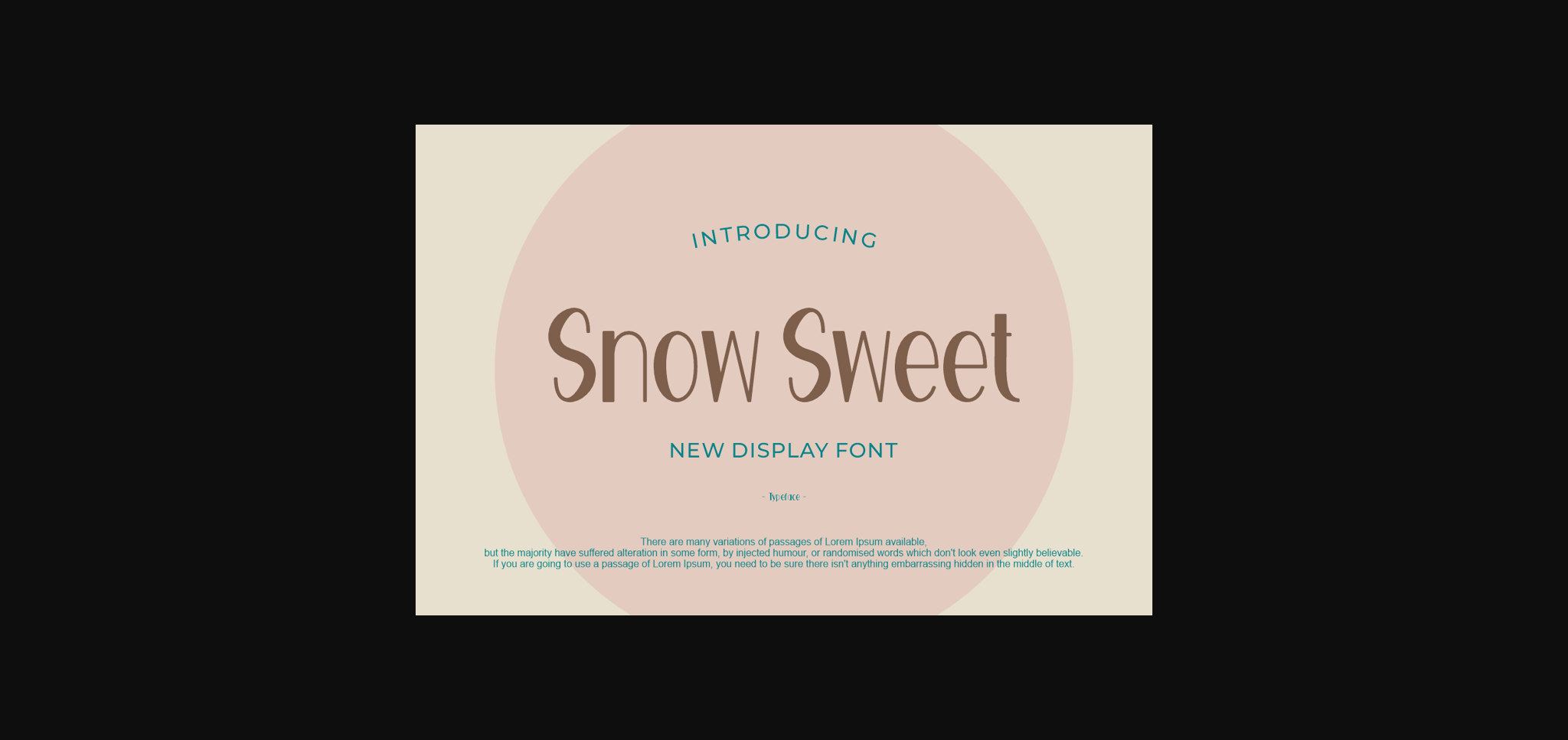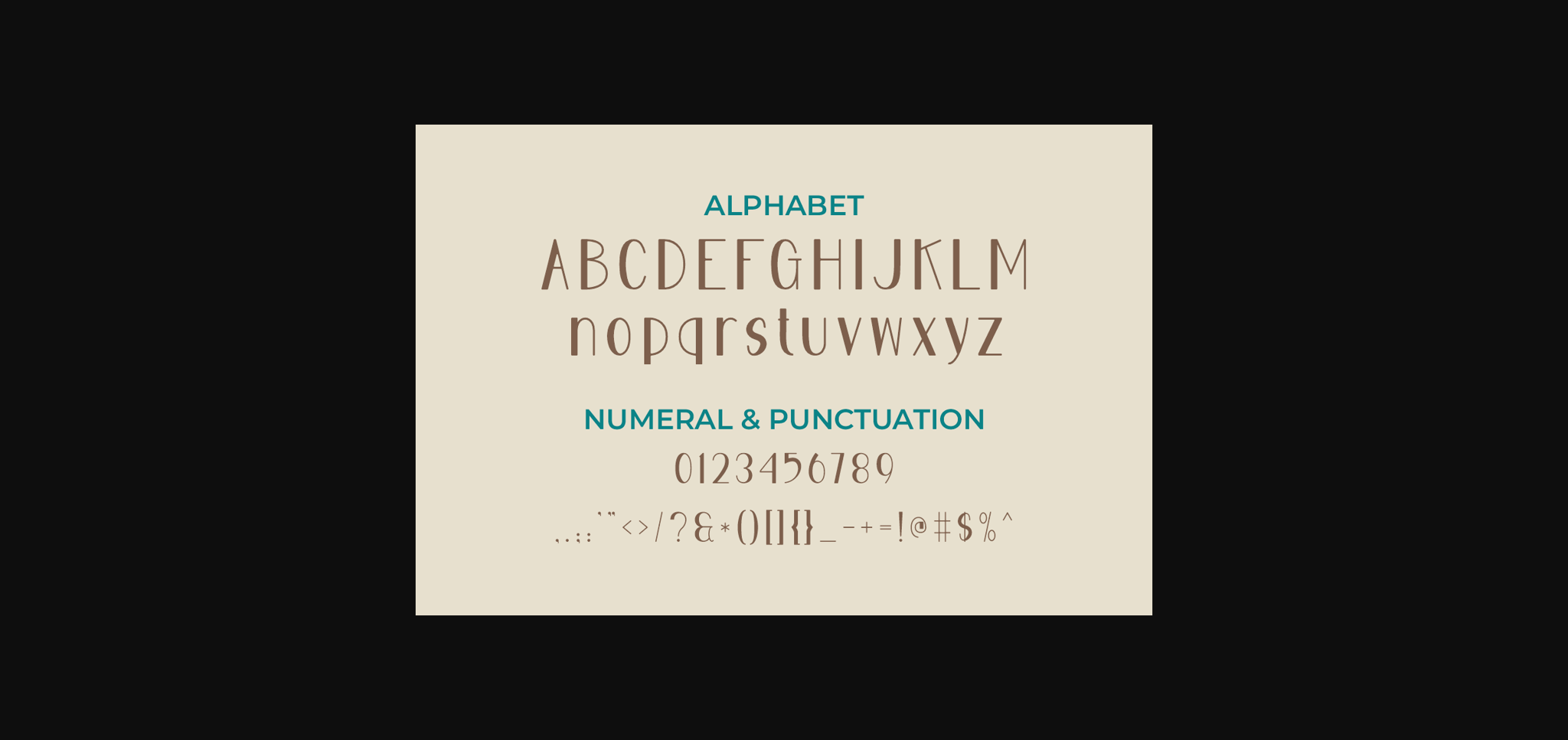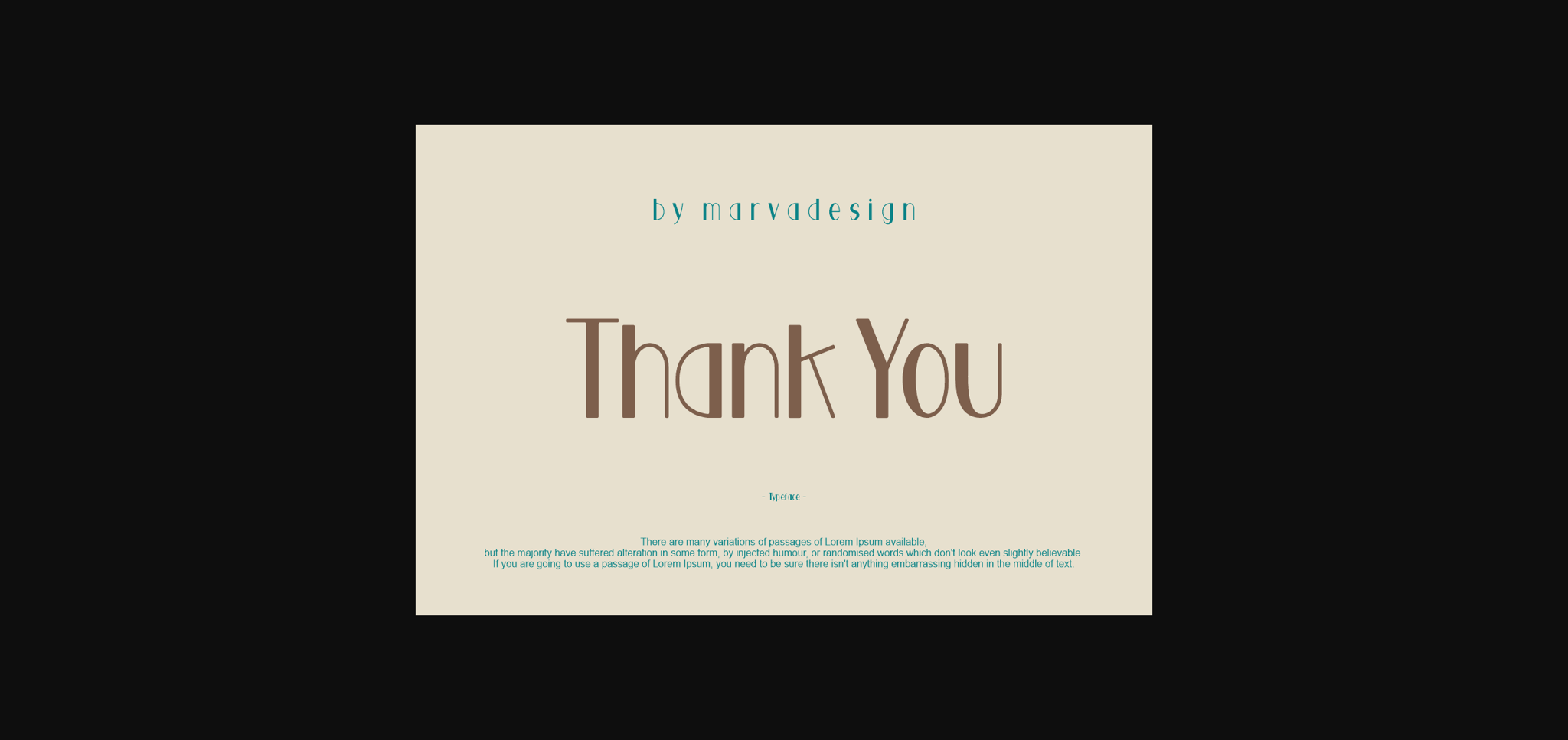
Snow Sweet Font
About Snow Sweet Font
Snow Sweet is a neat and casual handwritten sans serif font. Add it confidently to your projects and you will love the results!